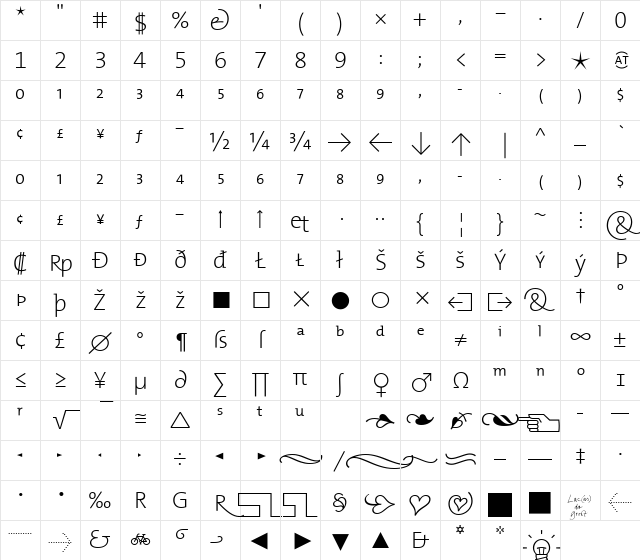
Complete TheMixExpert-ExtraLight Extra Light glyph index. Displaying only characters natively supported by TheMixExpert-ExtraLight Extra Light font.
TheMixExpert-ExtraLight is a composed and adaptable typeface that performs quietly and consistently across a wide range of design contexts. Its slender proportions lend an understated elegance to any composition.